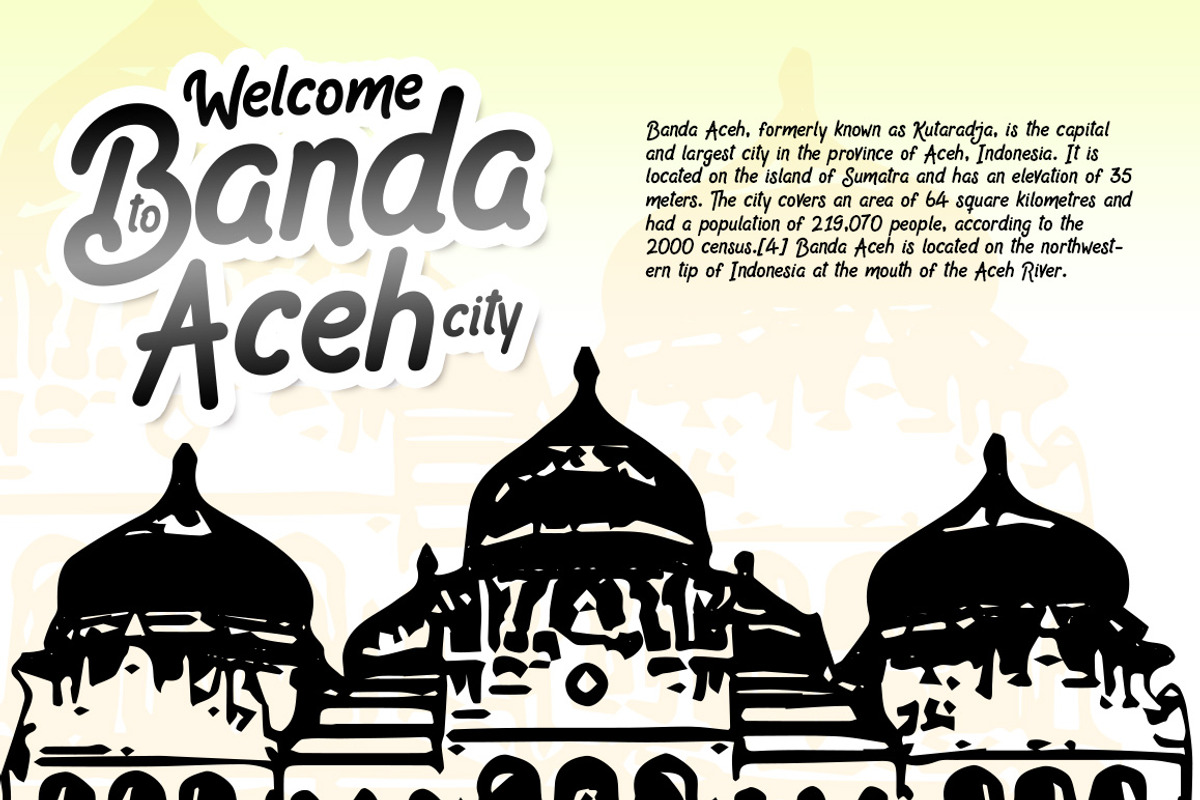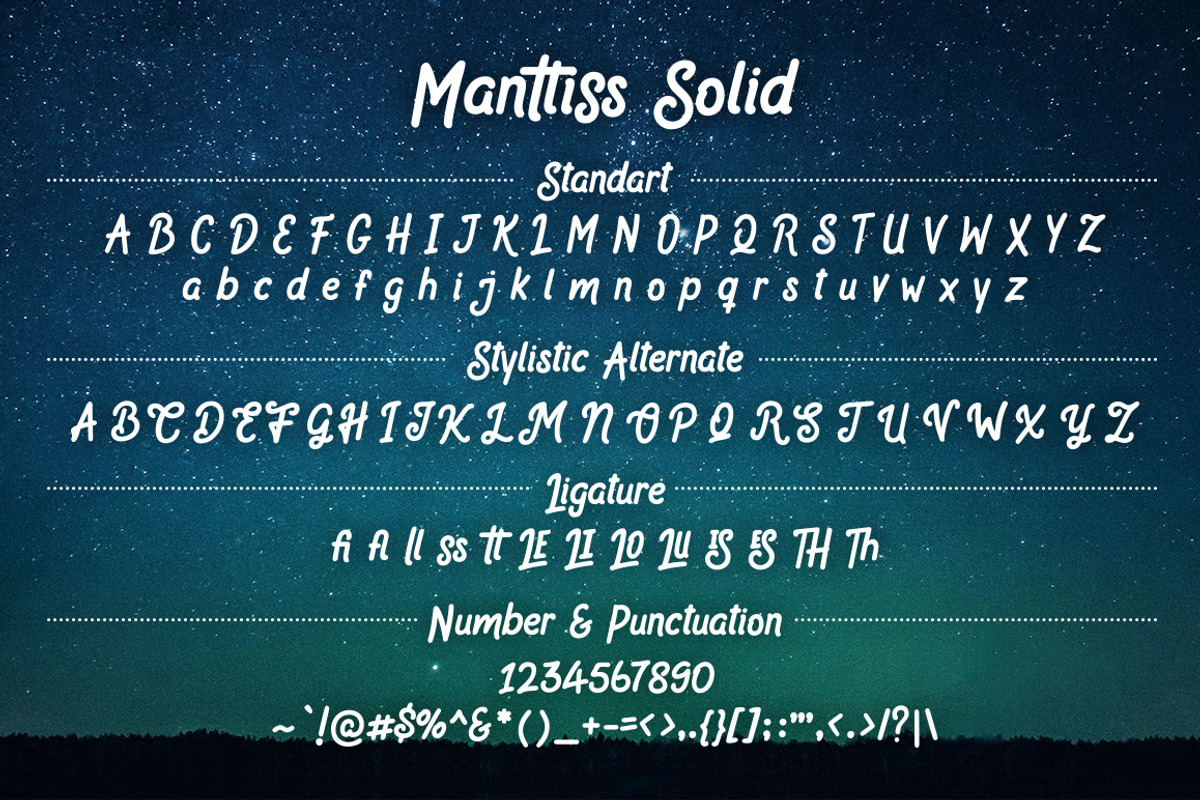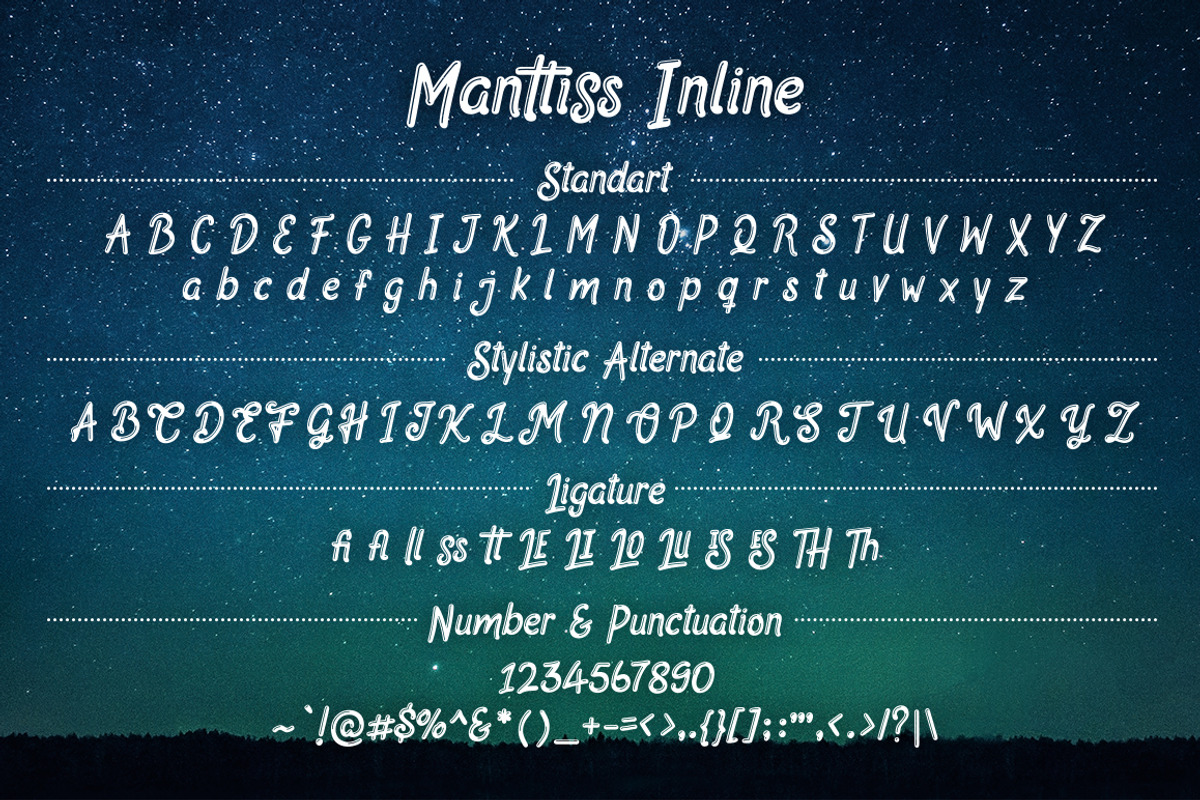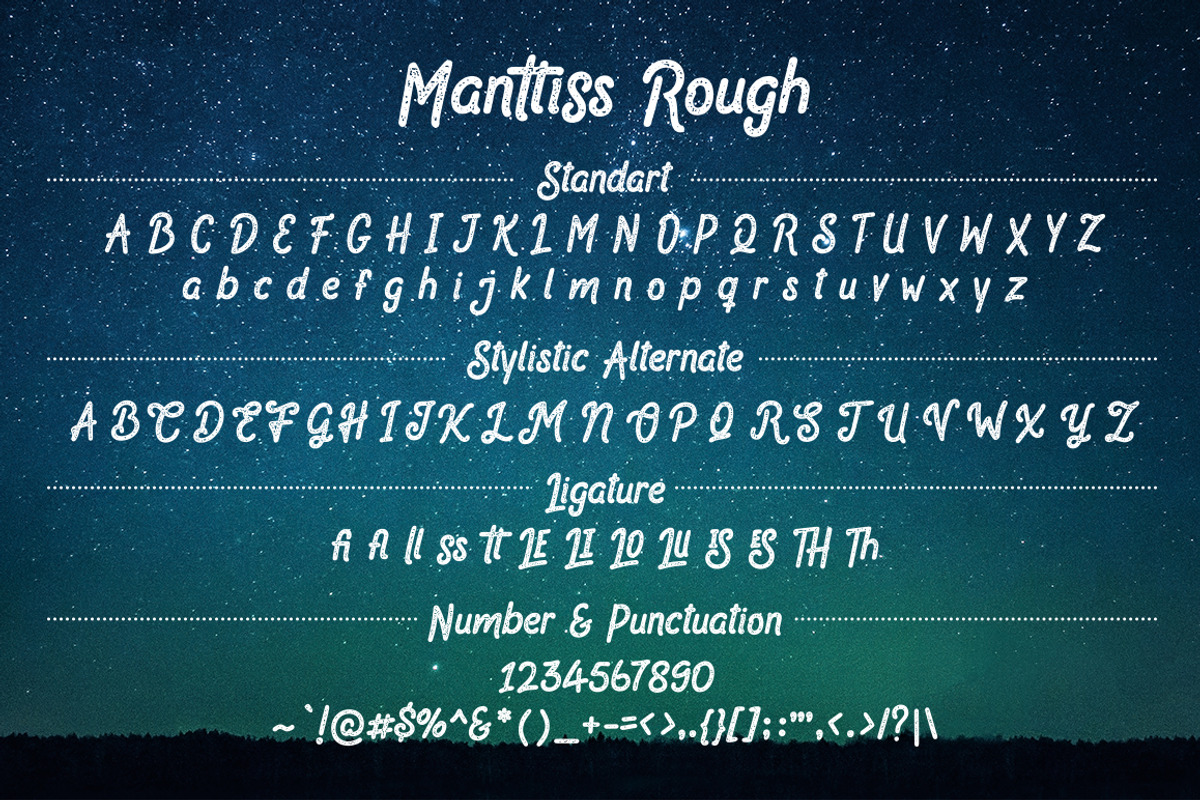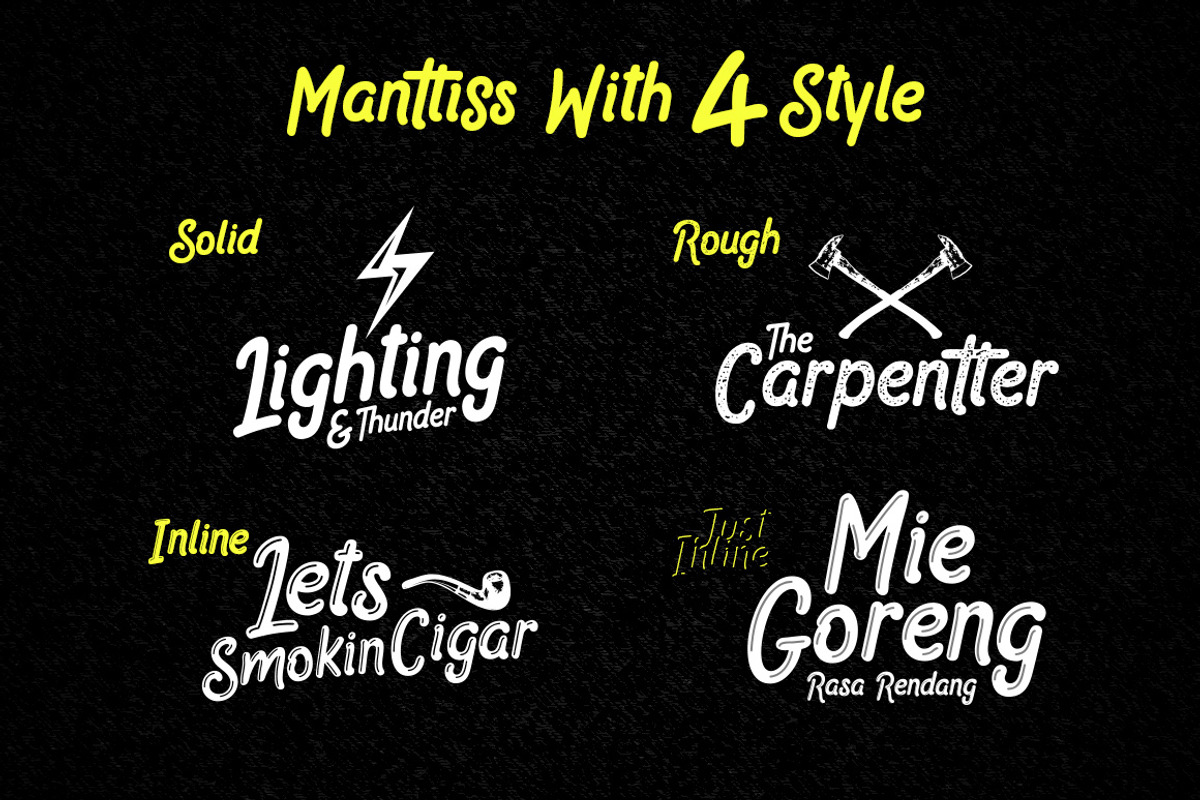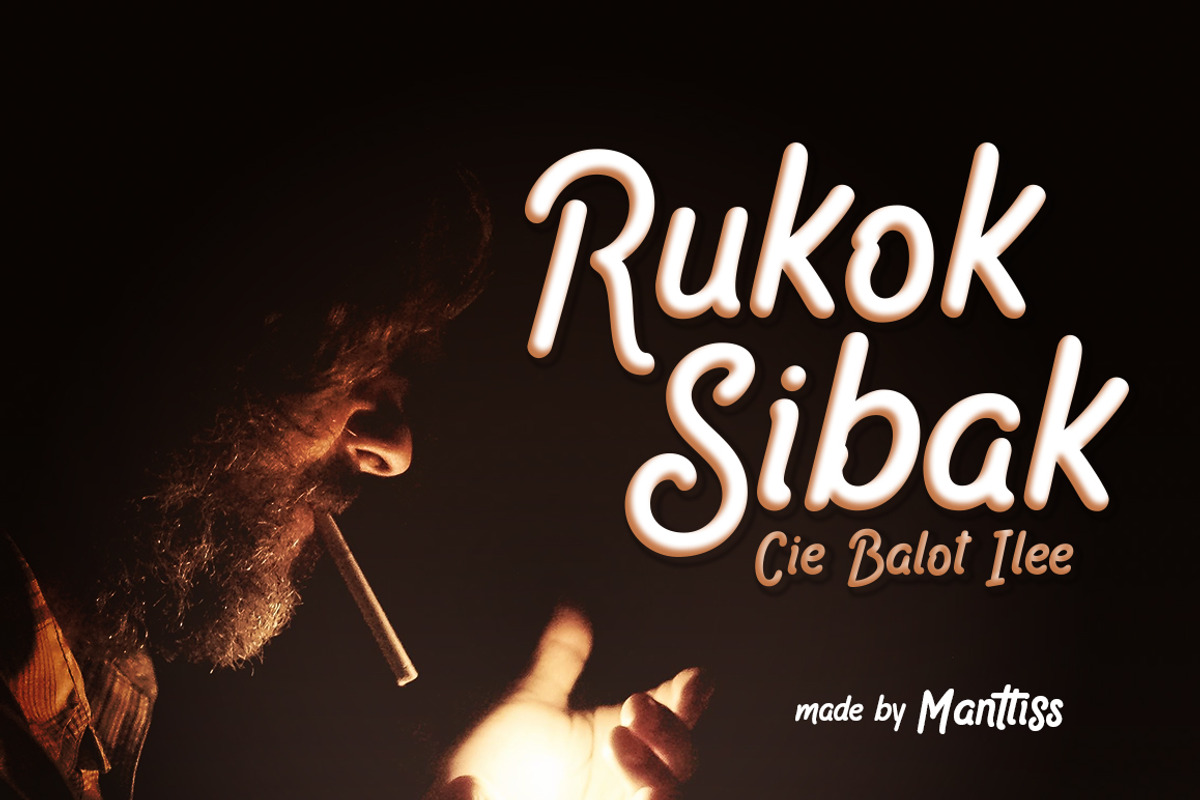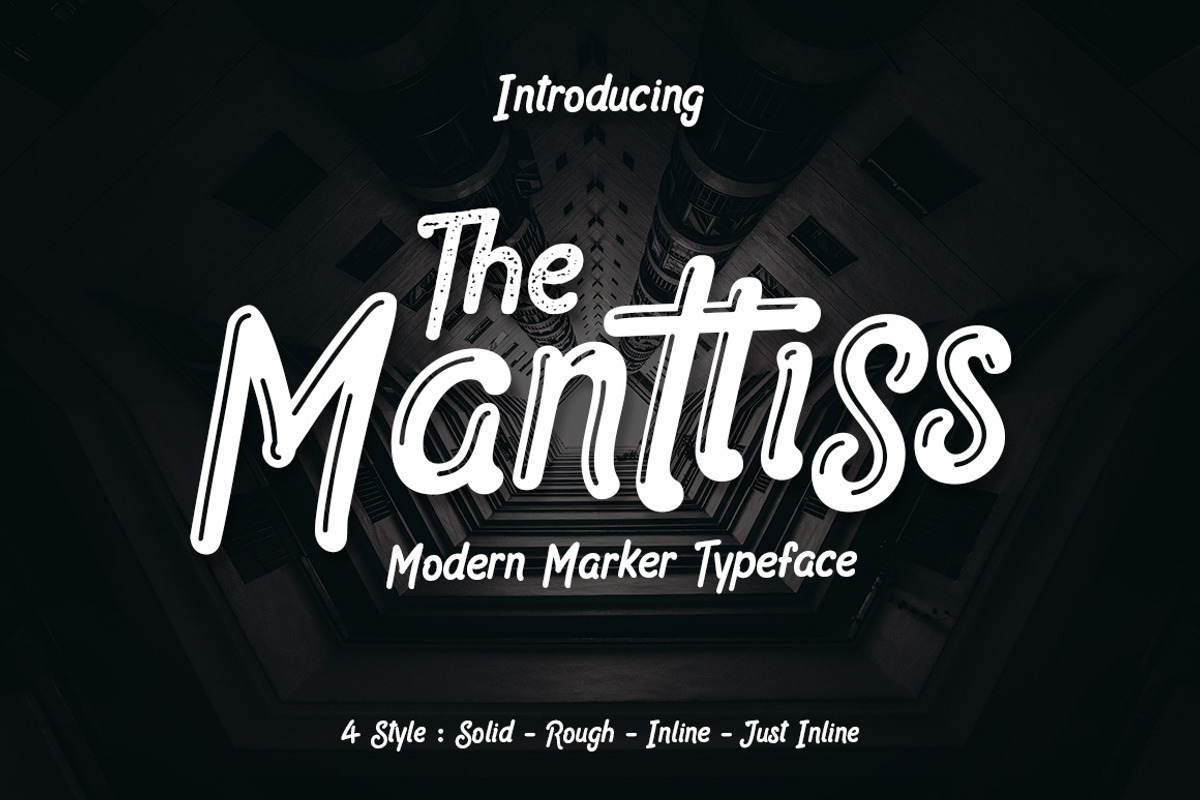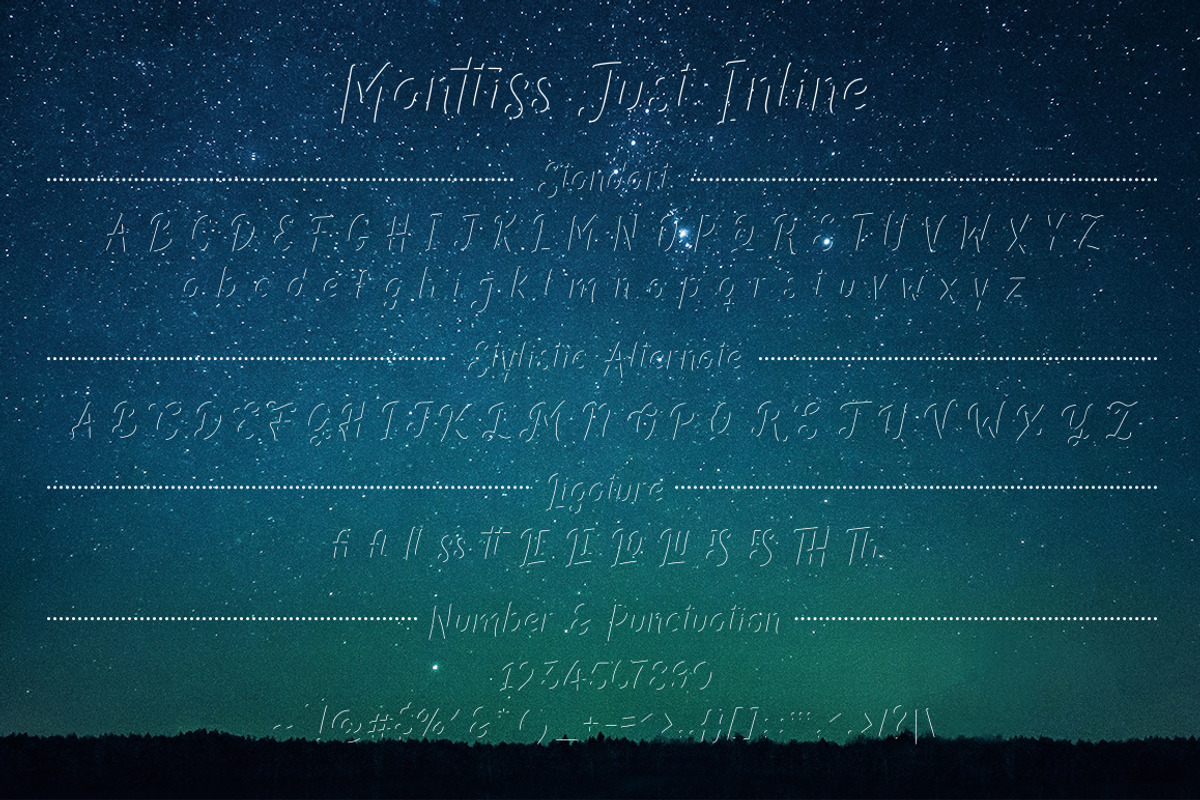
Manttiss Marker Font
Manttiss have 4 style : Solid - Inline - Just Inline that you can combine with Manttiss Solid and also have Rough style to. it also PUA encode so you can use in many soft. Each Style have 256 Glyph
Thanks for stopping by here, i would like to introduce to you Marker Typeface : Manttiss, this time i presented to you a marker font that playfull, bold, modern, and lovely to use as a logotype, packaging, very suitable for happy message and qoute poster, and etc
- Manttiss Solid
- Manttiss Inline
- Manttiss Rough
- Manttiss Just Inline